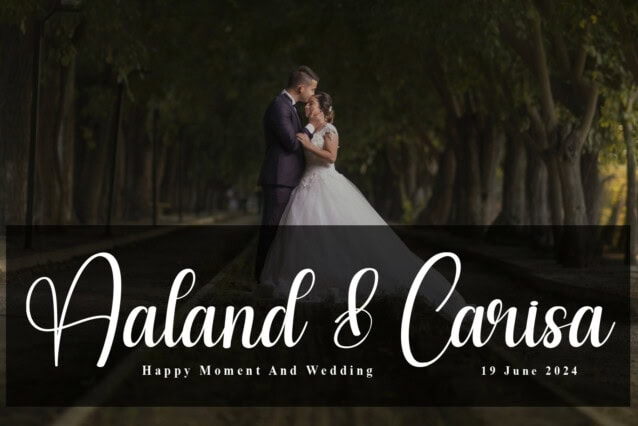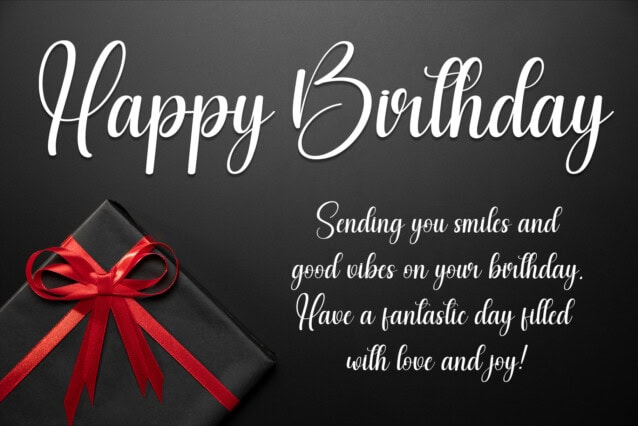
Boyband Calligraphy Font
Boyband Calligraphy Font is a sweet and friendly handwritten font. Its natural and unique style makes it incredibly fitting to a large pool of designs. The only limit is your imagination!